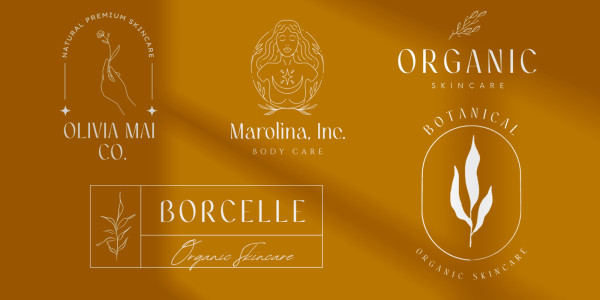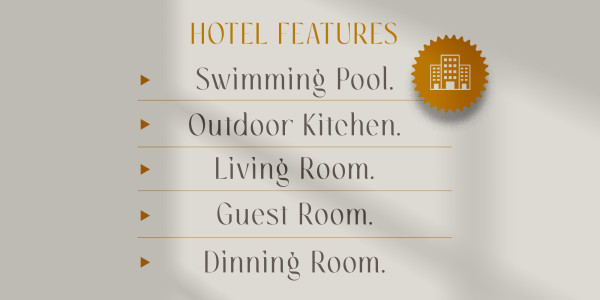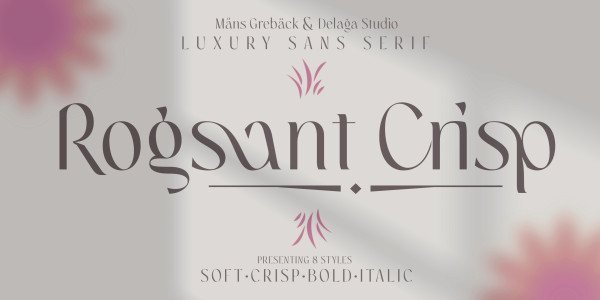
Rogsant Soft Font
Rogsant Soft Font, is a luxurious sans serif typeface that masterfully blends contrasting letterforms with a gentle flow and delicate rounded edges. Created by Mans Greback & Delaga, the allure of Rogsant Soft lies in its attention to detail and meticulously crafted letterforms, which create a harmonious balance between refinement and legibility.
Use underscore _ anywhere in a word set a decorative underline.
Use multiple underscores for longer swashes.
Example: Fine__Arts